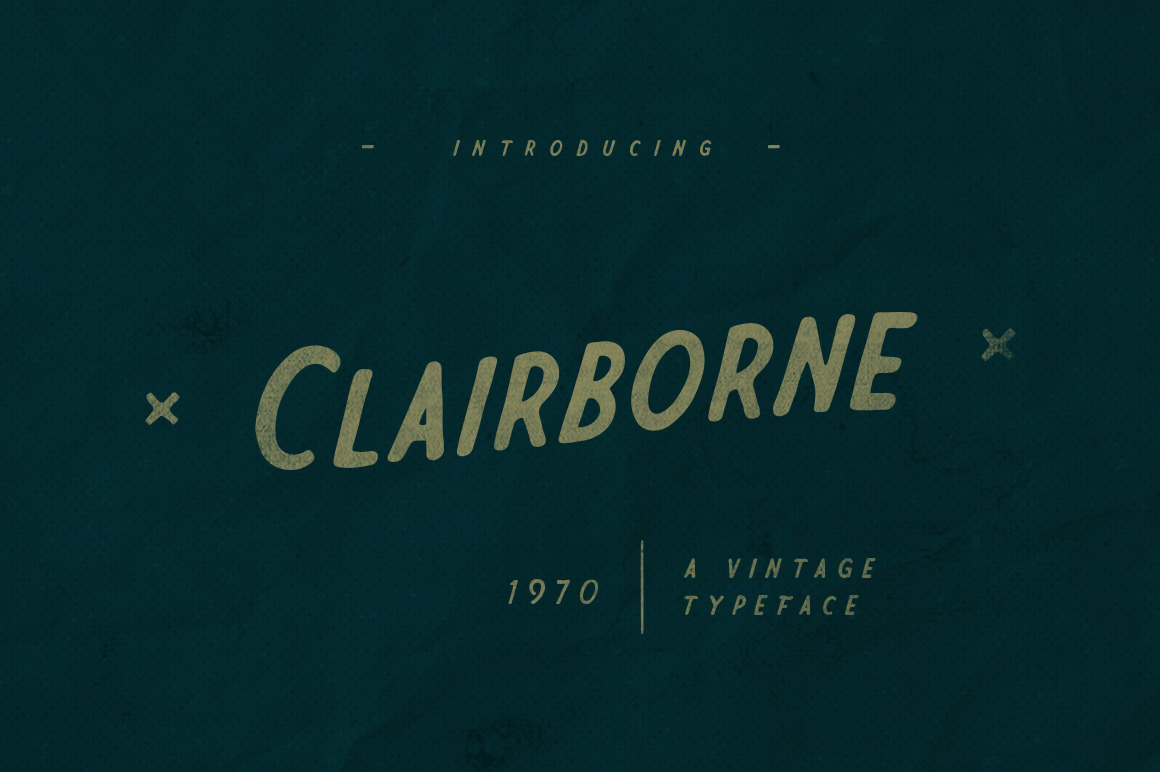
Clairborne Typeface
INTRODUCING
Clairborne is vintage typeface. The font have standar ligatures, contextual alternates, and stylistic alternates so you can be manual setting letter by letter what you want. This works well on short words or logos of brands is good for t-shirts, logos, labels, posters and etc. Can also write a sentence to create content design more attractive and stylish.
Featured Clairborne :
- Contextual Alternates